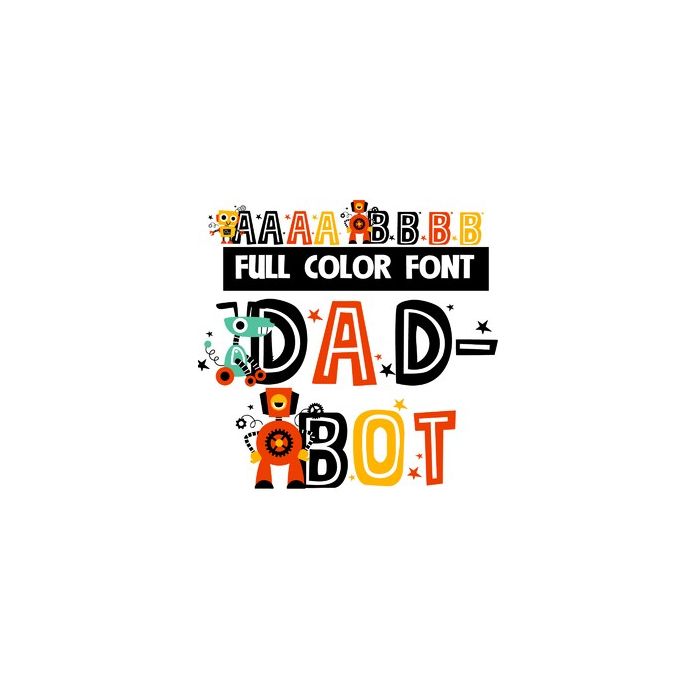
This full-color font features dad-bots on each uppercase letter. You can access another version of the letters by using the alt characters in Silhouette's glyph map.